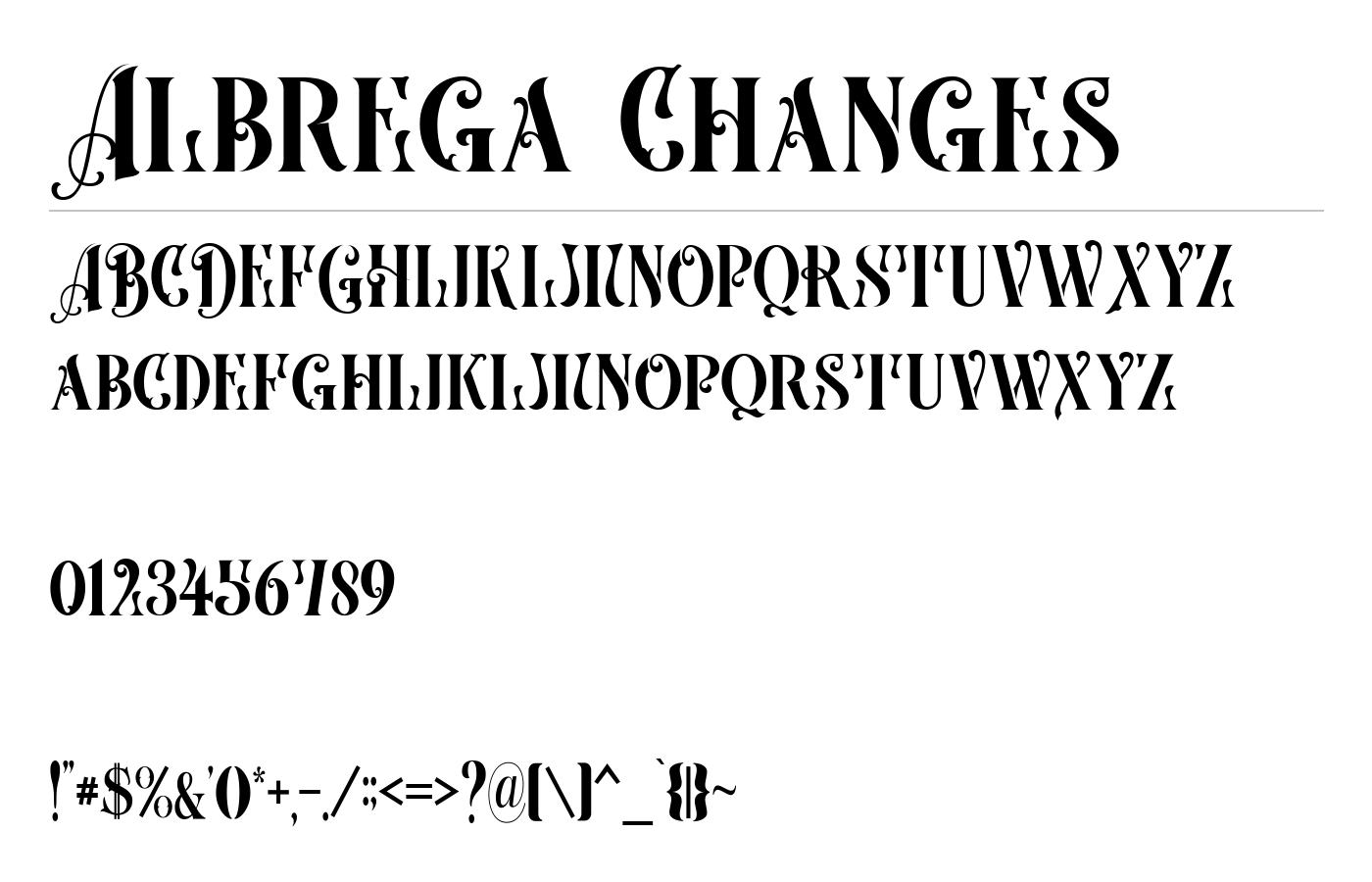
Albrega Changes is a decorative serif font with a dramatic, vintage flair, characterized by ornate, swirling details and high contrast between thick and thin strokes. Its tall, narrow letterforms and stylized embellishments convey elegance and sophistication, making it ideal for eye-catching headlines, logos, and packaging in fashion, luxury, or retro-themed designs. This font stands out for its artistic personality and bold presence, adding a unique, classy touch to any design.
Albrega Changes Font
About Albrega Changes Font